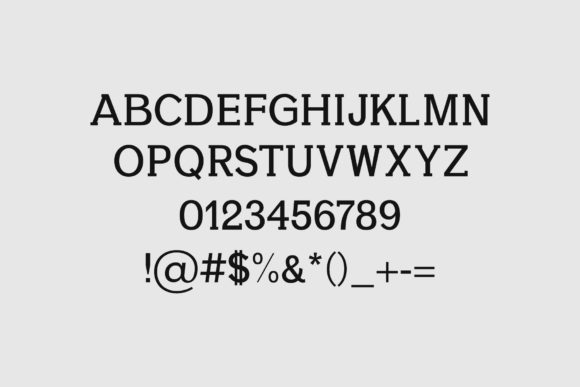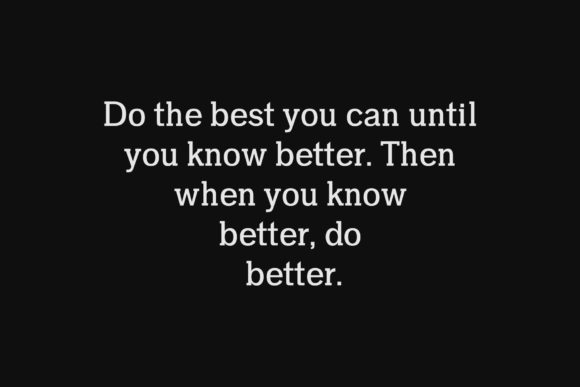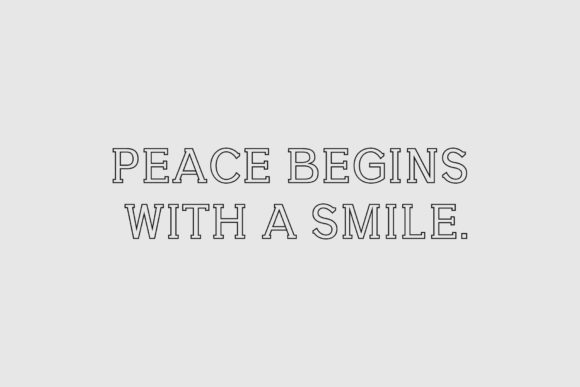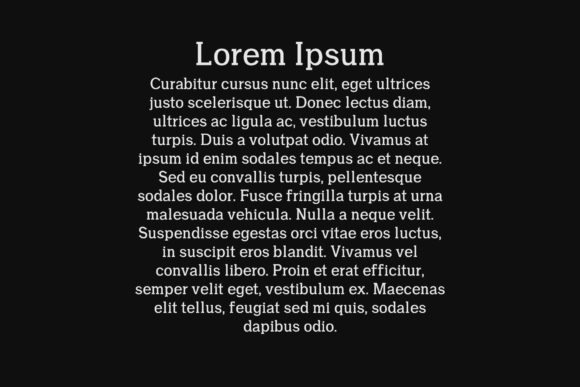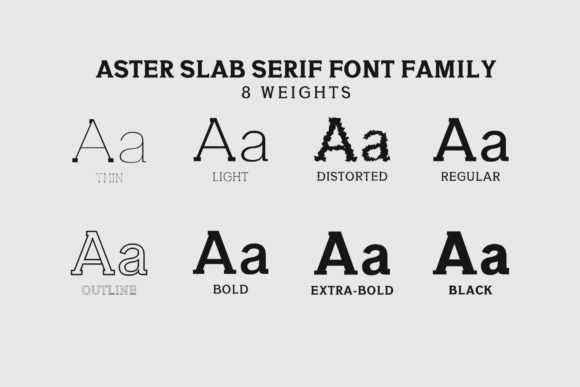
Aster Family Font: Elevate Your Designs with a Touch of Elegance
Aster is a solemn and cool serif font family, perfectly designed with a touch of creativity to nicely complement each of your creative projects! If you’re a designer or crafter looking for a font that exudes elegance and sophistication, look no further than the Aster Family Font. In this article, we’ll dive into the world of Aster and explore its features, benefits, and uses.
The Story Behind Aster Family Font
The Aster Family Font is a meticulously crafted serif font family that boasts a unique blend of classic and modern elements. Its creator aimed to design a font that would be both versatile and visually appealing, making it suitable for a wide range of applications, from print materials to digital projects.
Key Features of Aster Family Font
- Solemn and Cool Design: Aster’s serif design gives it a sense of formality and sophistication, making it perfect for projects that require a touch of elegance.
- Creatively Touched: The font’s creative twist sets it apart from more traditional serif fonts, adding a unique flair to your designs.
- Versatile and Adaptable: Aster Family Font is designed to work seamlessly across various mediums, including print, digital, and web applications.
- Highly Legible: The font’s clear and concise lettering ensures excellent readability, even at smaller font sizes.
Benefits of Using Aster Family Font
So, why choose Aster Family Font for your next project? Here are just a few benefits you can expect:
- Elevate Your Brand: Aster’s sophisticated design helps to elevate your brand’s visual identity, making it perfect for luxury brands, high-end products, or professional services.
- Stand Out from the Crowd: The font’s unique creative twist helps your designs stand out in a crowded market, capturing the attention of your target audience.
- Save Time and Effort: With Aster Family Font, you can achieve professional-looking results without spending hours searching for the perfect font or tweaking your design.
Use Cases for Aster Family Font
Aster Family Font is an incredibly versatile font family that can be used in a variety of contexts, including:
- Print Materials: Use Aster for business cards, brochures, posters, and other print materials that require a touch of elegance.
- Digital Projects: Aster works beautifully for digital projects, such as website designs, social media graphics, and email marketing campaigns.
- Packaging and Branding: The font’s sophisticated design makes it perfect for packaging and branding projects, helping to create a lasting impression on your customers.
Tips for Using Aster Family Font
To get the most out of Aster Family Font, here are a few tips to keep in mind:
- Experiment with Font Sizes: Aster works beautifully at a range of font sizes, so don’t be afraid to experiment to find the perfect fit for your project.
- Pair with Other Fonts: Try pairing Aster with other fonts to create a unique and visually appealing typography scheme.
- Pay Attention to Line Spacing: Make sure to adjust line spacing to ensure optimal readability and flow.
In conclusion, the Aster Family Font is an exceptional serif font family that offers a unique blend of elegance, sophistication, and creativity. With its versatile design, high legibility, and wide range of applications, Aster is the perfect choice for designers and crafters looking to elevate their projects. Whether you’re working on a print material, digital project, or packaging design, Aster Family Font is sure to impress.